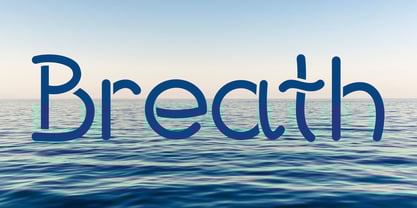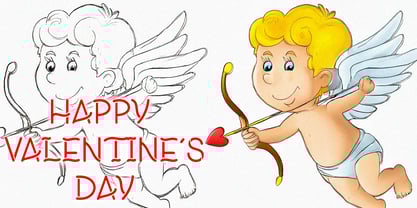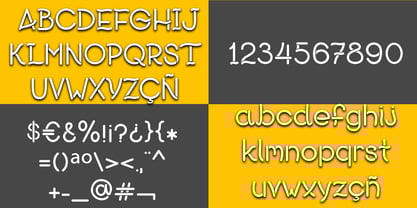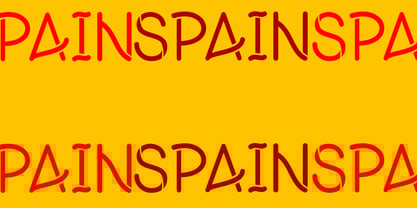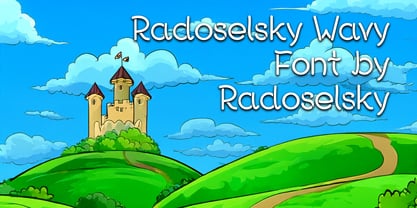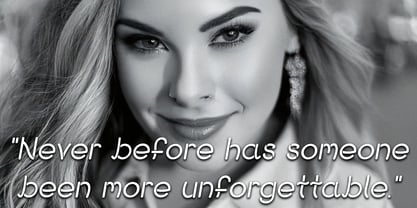
Radoselsky
by Radoselsky
The Radoselsky Font Family was designed by Eugene Radoselsky and published by Radoselsky. Radoselsky contains 1 styles.
Radoselsky Wavy – Romantic Typeface
Designed with love and creativity, Radoselsky Wavy is a unique typeface featuring 218 beautifully crafted characters. With its flowing, wavy strokes, this font brings an elegant and whimsical touch to any design. Supporting English, Spanish, French, Portuguese, German, and Italian, it’s a versatile choice for heartfelt messages across different languages.
Perfect for love postcards, letters, wedding invitations, and romantic designs, Radoselsky Wavy captures the essence of passion and elegance. Whether you’re crafting a heartfelt note or designing dreamy graphics, this font will add a touch of romance and charm to your work.
• Character Set: Includes 218 characters, featuring:
• Uppercase and lowercase letters (A-Z, a-z)
• Numbers (0-9)
• Punctuation and symbols
• Accented characters like é, ü, ñ, ç, à, and others for full language support